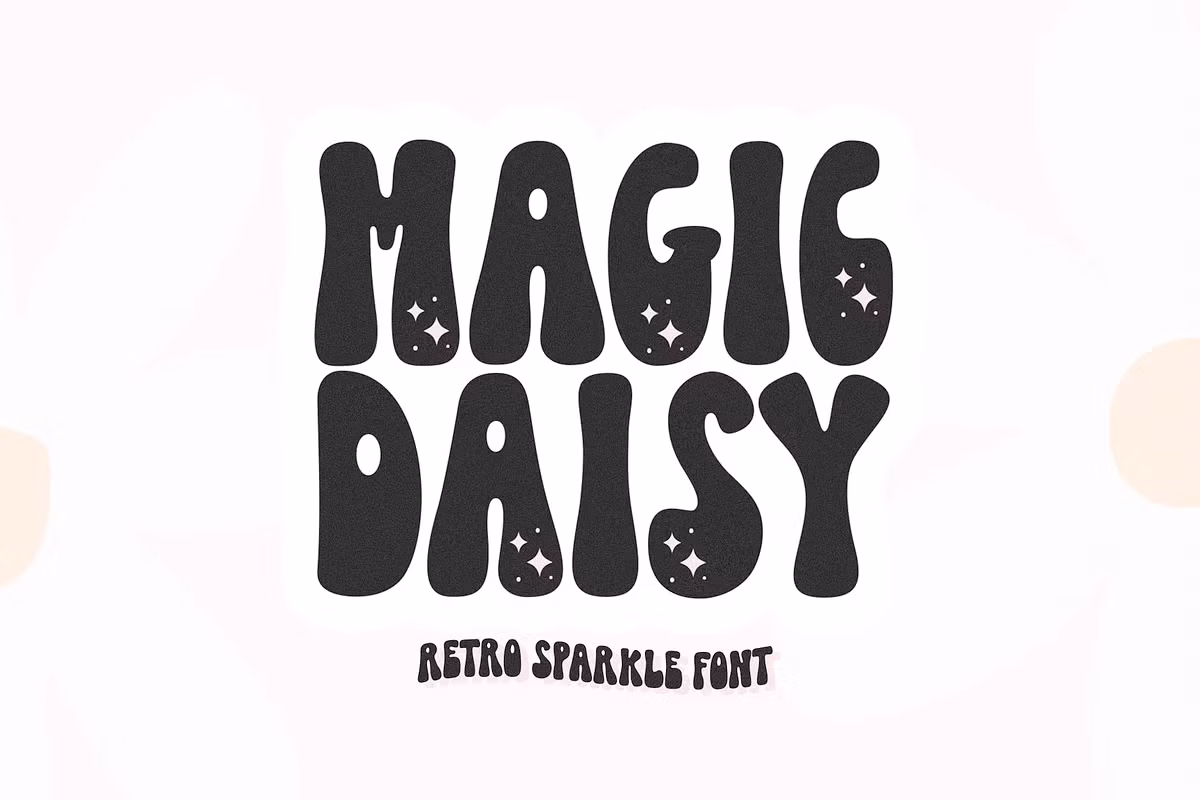
Magic Daisy | Retro Sparkle Font Free Download
The Magic Daisy | Retro Sparkle Font Free Download is a playful and sparkling typeface that brings a nostalgic retro vibe with a modern twist. Perfect for creative projects, party invitations, fashion branding, retro-inspired graphics, and social media posts, this font exudes fun, energy, and vintage charm.
With its bubbly, sparkling details and whimsical design, Magic Daisy stands out and adds an extra touch of magic to any project. The font includes uppercase and lowercase letters, numbers, punctuation, and multilingual support, offering versatility for all your creative needs.